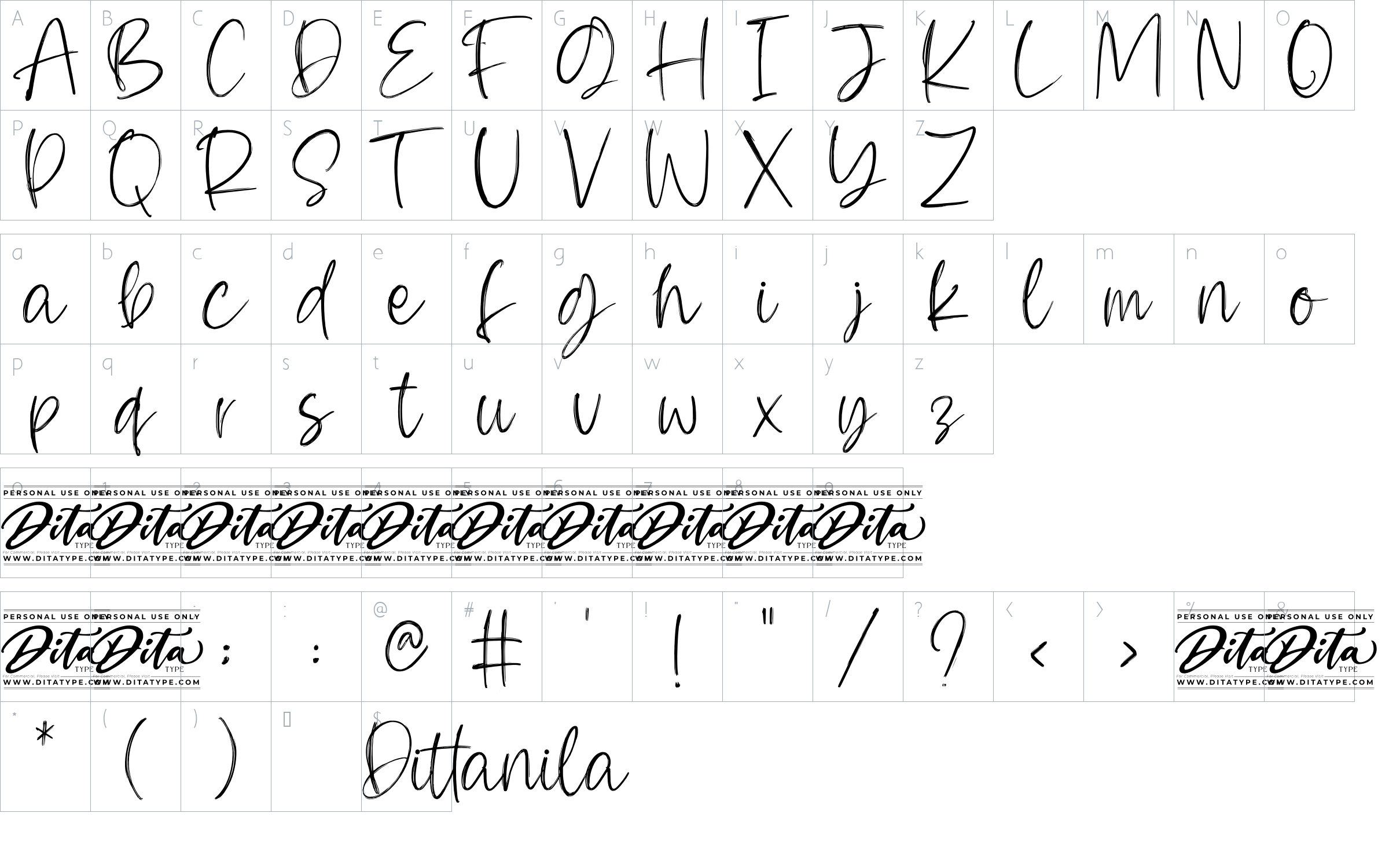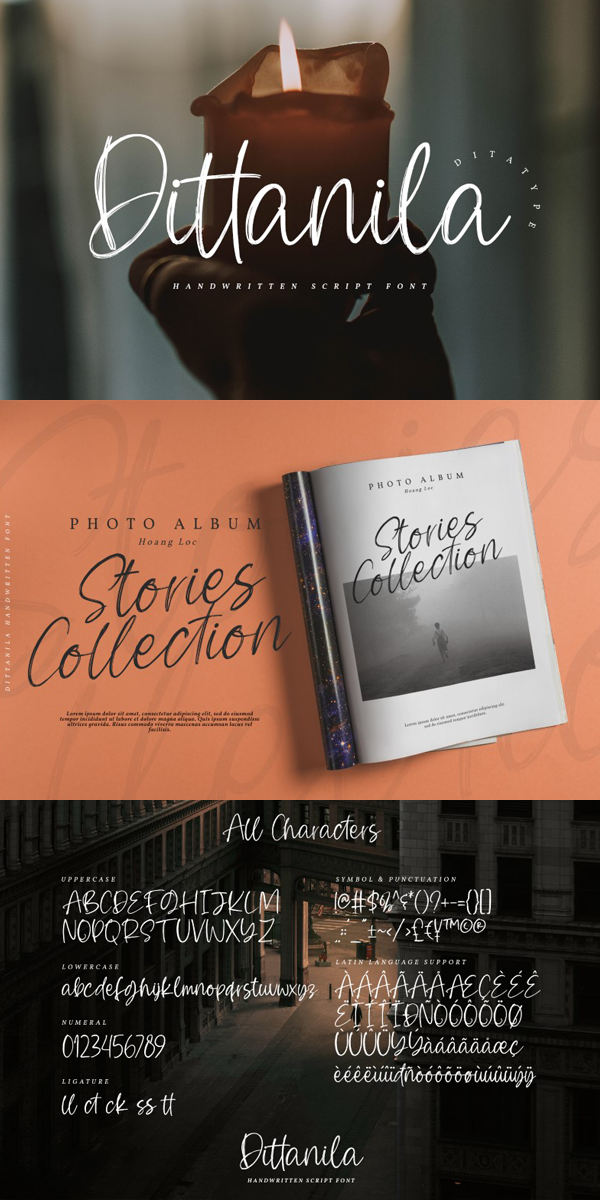
Dittanila Font
About Dittanila
Dittanila is a beautiful handwritten font. The handwritten combined with brush font will make your design project modern and attractive. Made for any professional project branding. Dittanila is best used for branding logotype, and quotes.
-Standart Ligatures